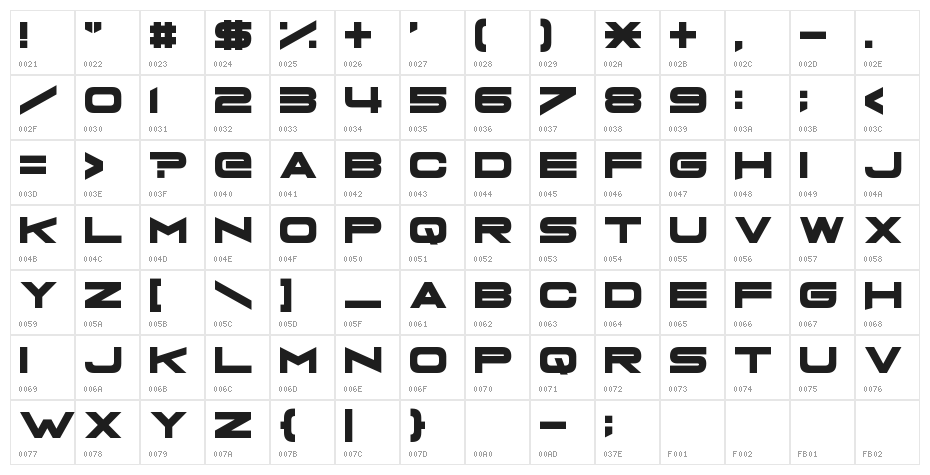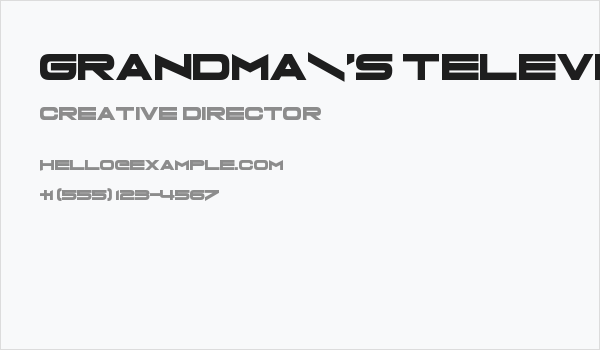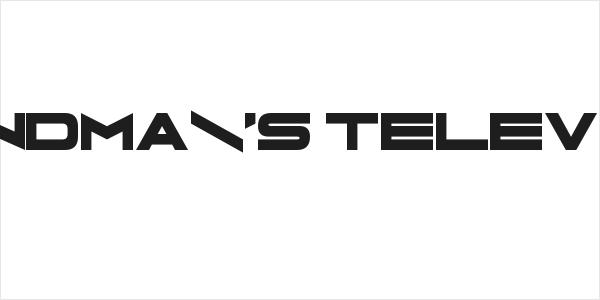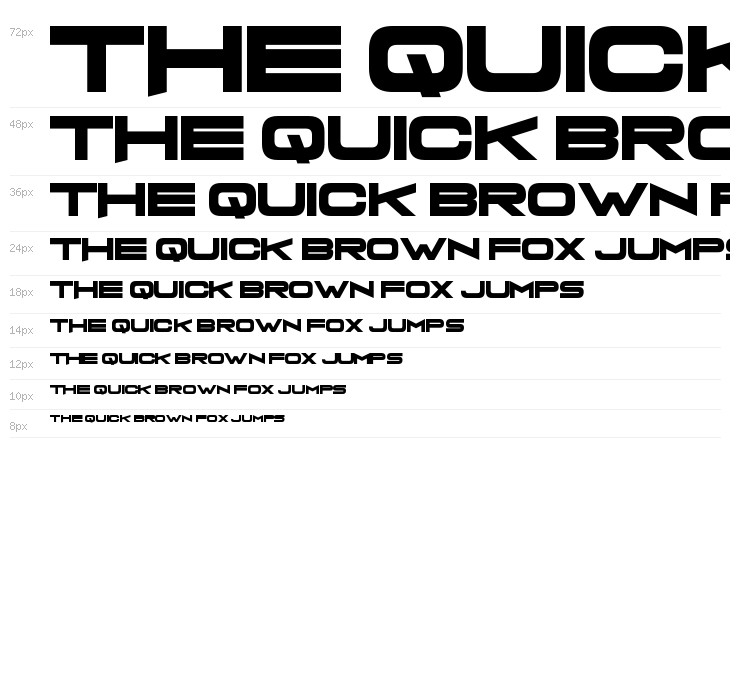
Grandma's Television Font
Grandma's Television Description
This font features a bold and futuristic design with a geometric structure. The characters are wide and have a strong presence, making them ideal for impactful headlines. The uppercase letters are consistent in height, with sharp angles and clean lines that give a modern and technological feel. The numerals follow the same design principles, ensuring uniformity across all characters. Special characters are uniquely styled, maintaining the overall aesthetic of the font. The design is suitable for projects that require a contemporary and bold look.
Proposed ProjectsIdeal for technology branding, sci-fi posters, video game titles, and modern advertising.